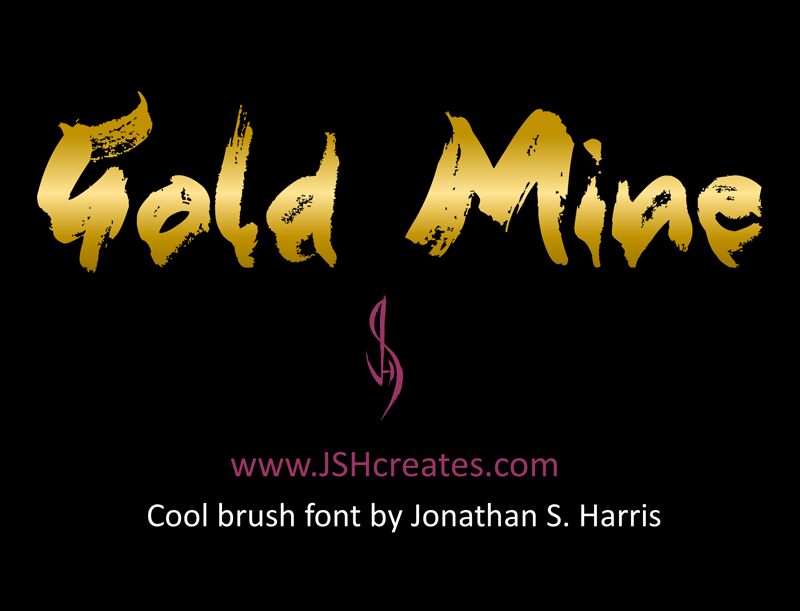
Gold Mine, designed by JSH creates, is a bold and captivating brush font that exudes elegance and charm. Its expressive strokes and unique texture make it perfect for projects that require a touch of sophistication and creativity. This versatile typeface is an ideal choice for branding, logo design, packaging, invitations, and any other project that seeks to make a statement. With its bold weight, Gold Mine commands attention while maintaining readability. Let your designs shine with the distinctive beauty of Gold Mine as it adds a touch of luxury to your creative endeavors.
Gold Mine